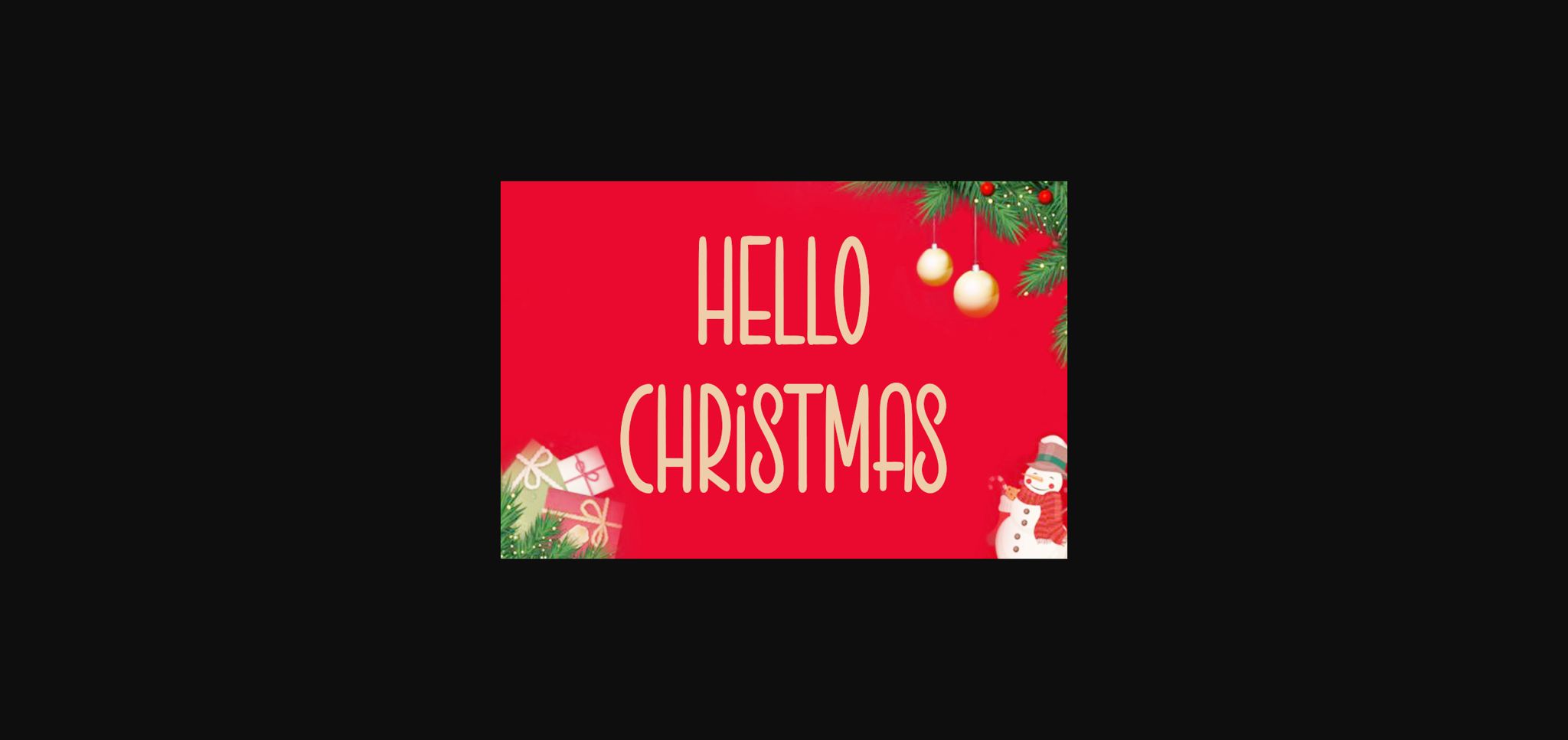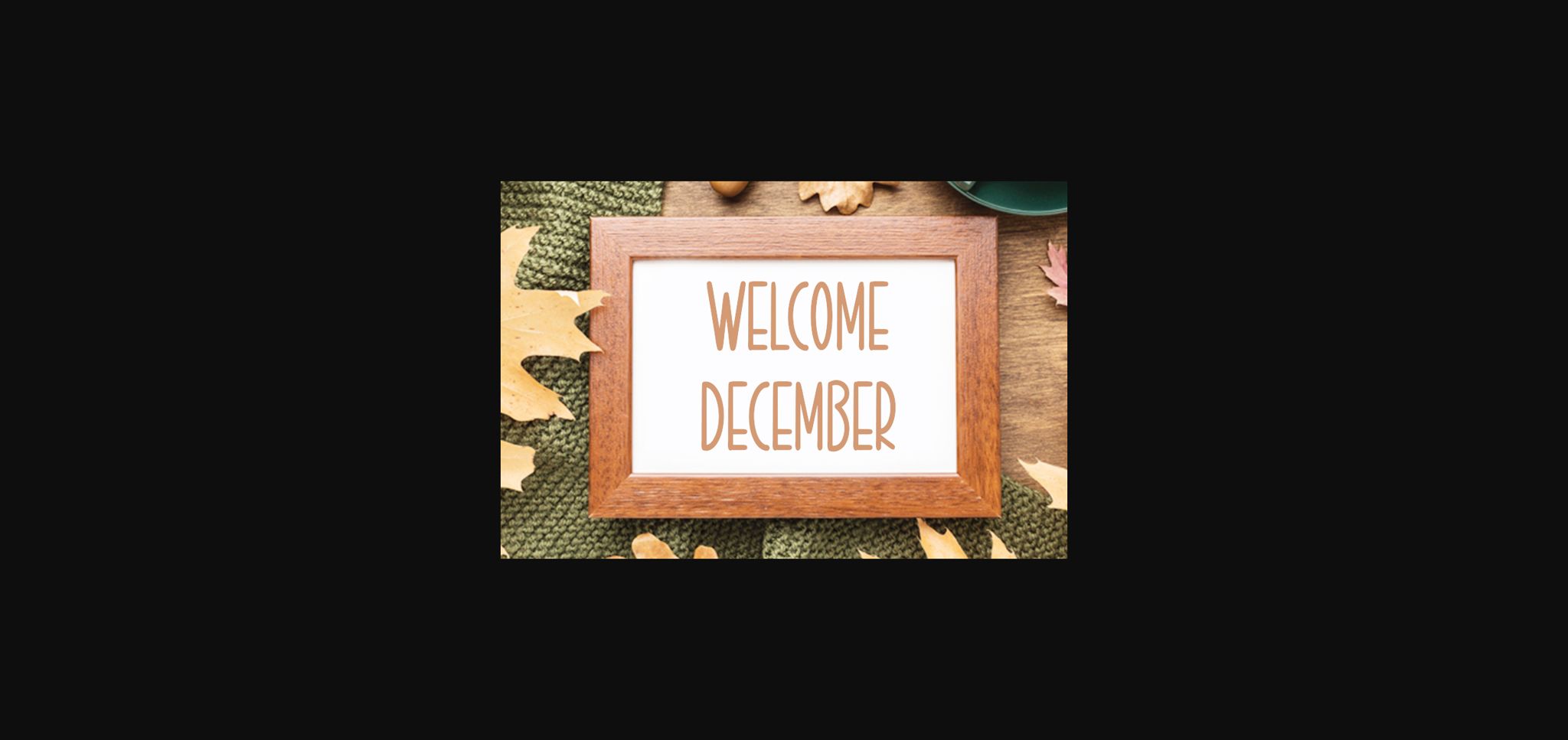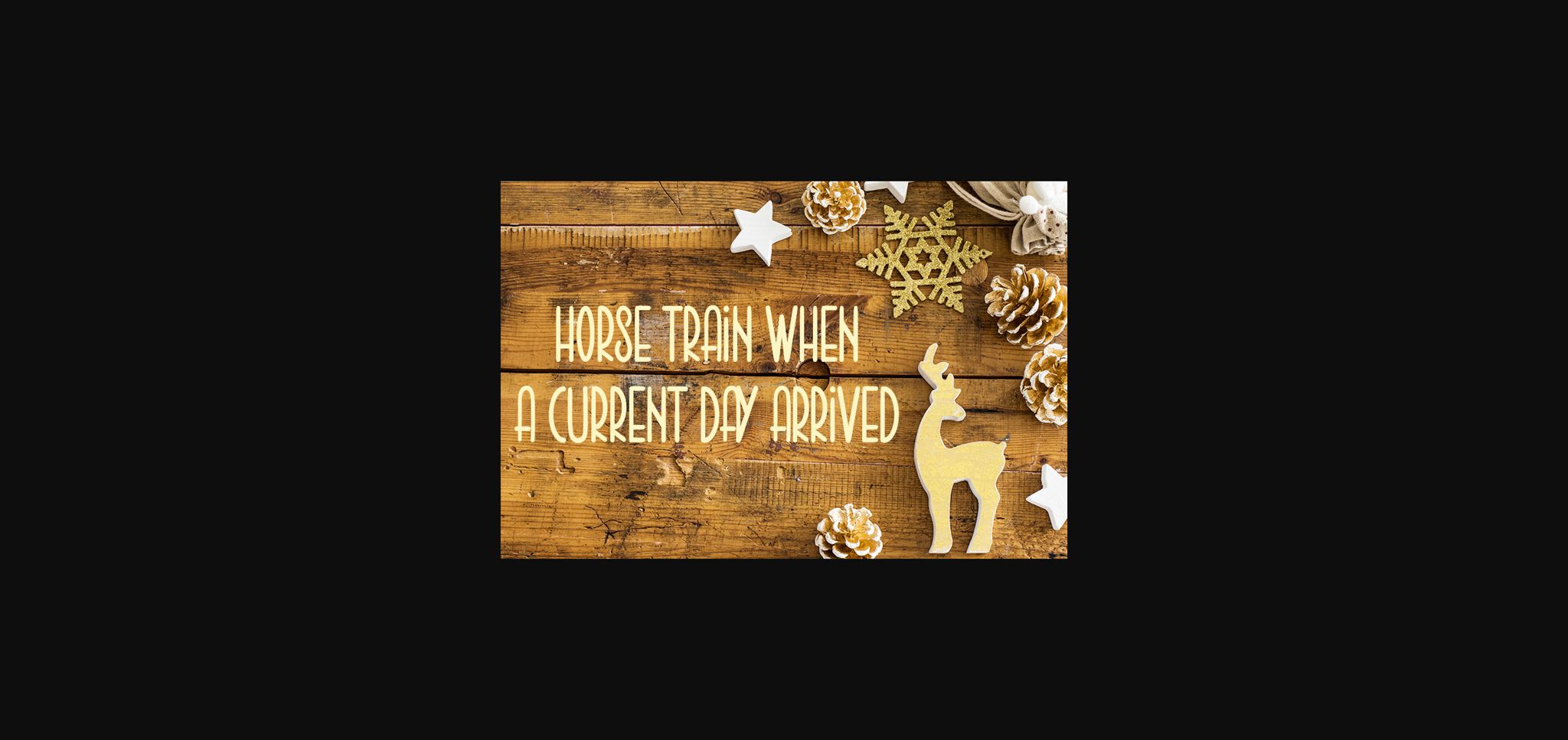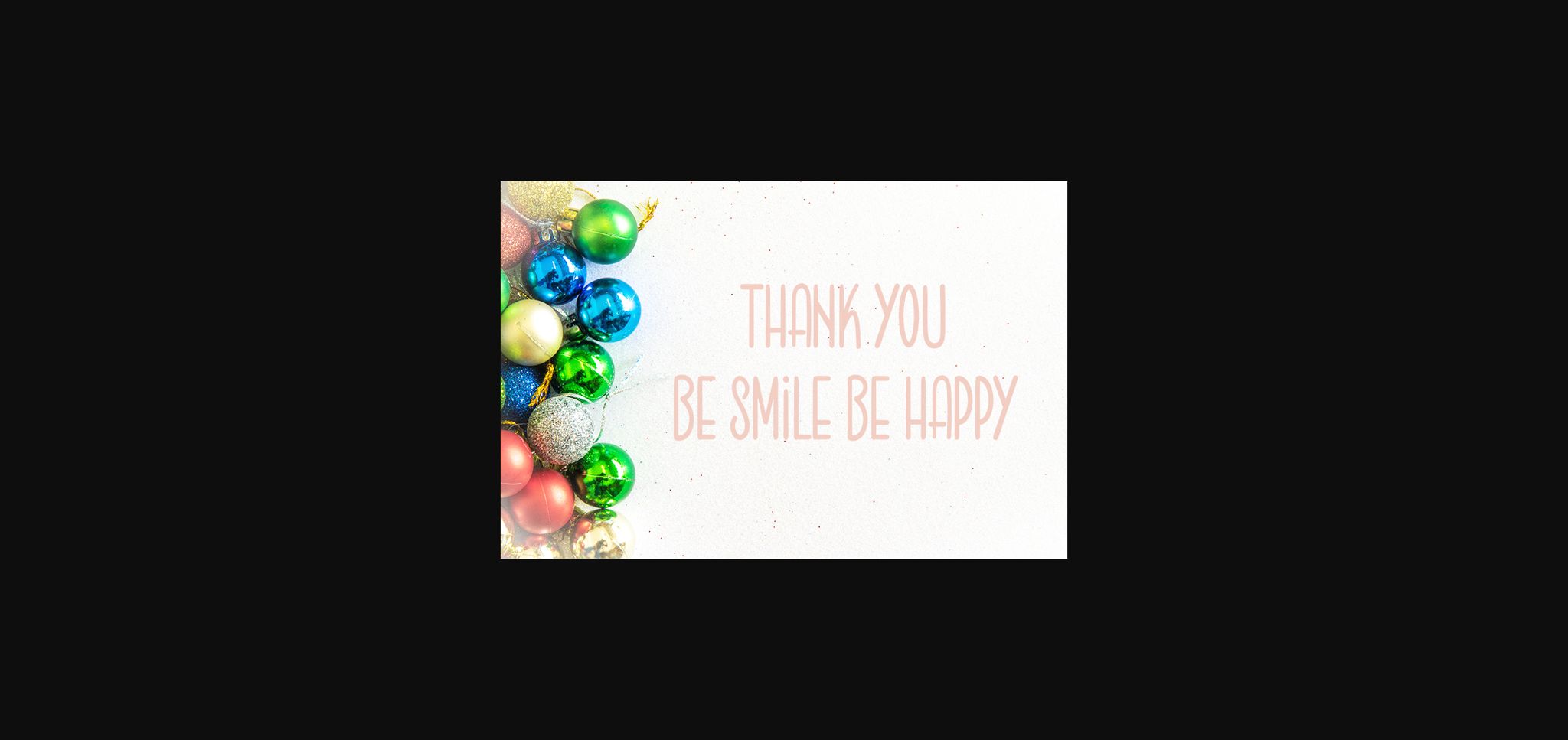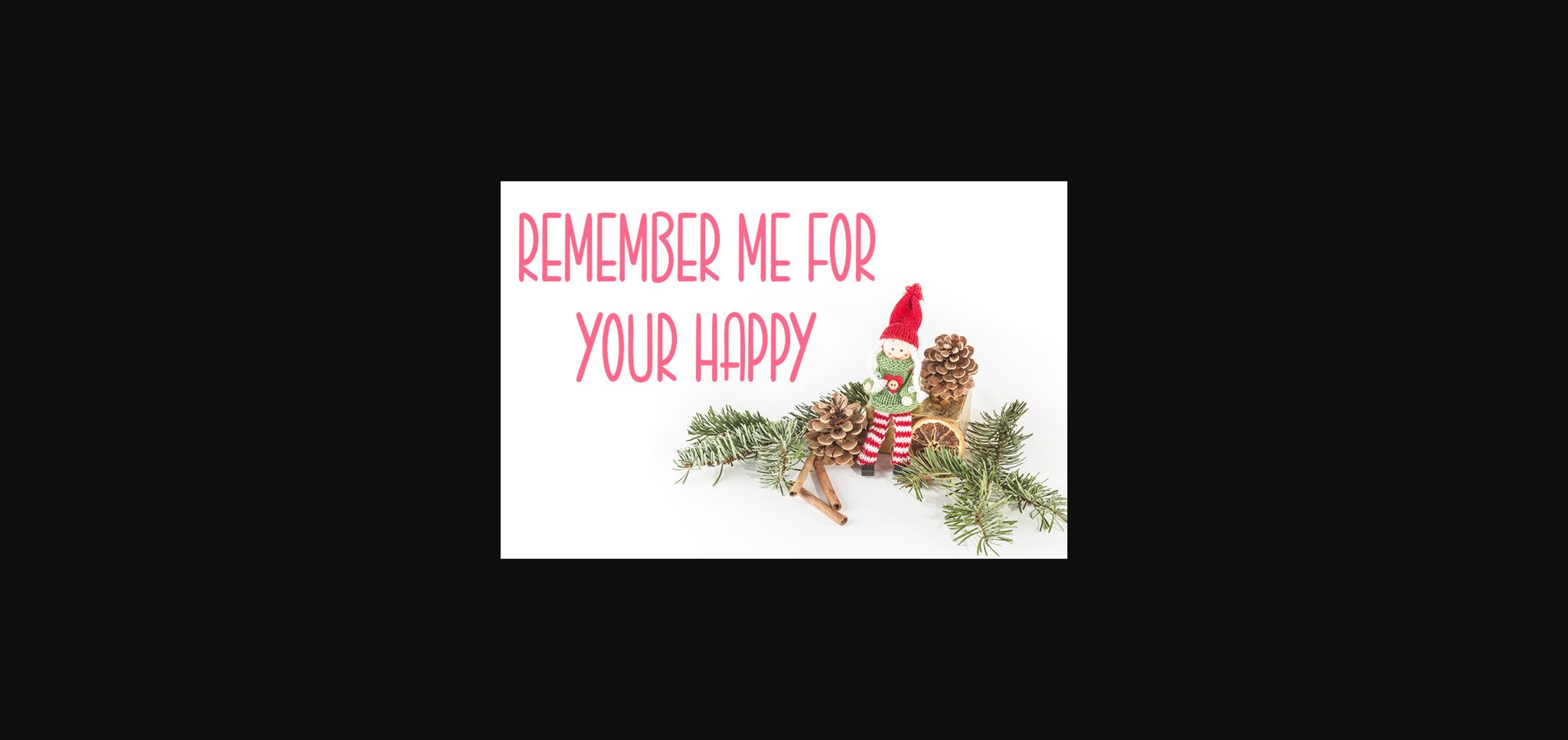
HomeSans Serif FontsHello Christmas Font Sans Serif Fonts Hello Christmas Font FacebookXPinterestWhatsApp 1 of 7 ... Hello Christmas Font Poster 2... Hello Christmas Font Poster 3... Hello Christmas Font Poster 4... Hello Christmas Font Poster 5... Hello Christmas Font Poster 6... Hello Christmas Font Poster 7... About Hello Christmas Font Hello Christmas is a simple and neat sans serif font. It can naturally matched to a large set of projects, so add it to your creative ideas and notice how it makes them stand out! DOWNLOAD NOW People also explored Milkshake Font MFC French Roman Avartequero Font Zimphony Duo Font Madelina Script Font Simple Signature Font Winter Smile Font Flowery Font Bray Notes Font 287 0 TagsHello Christmas Font Previous articleBoilover FontNext articleFruit Beautiful Font LEAVE A REPLY Cancel reply Comment: Please enter your comment! Name:* Please enter your name here Email:* You have entered an incorrect email address! Please enter your email address here Website: Save my name, email, and website in this browser for the next time I comment. Personal Use Free Color Personal Use Free Read more about this font Dream Personal Use Free Read more about this font Pompom Personal Use Free Read more about this font Party Pooper Personal Use Free Read more about this font BLOG Free vs Paid Fonts: Why Investing in Premium Fonts Is Worth It Free vs Paid Fonts: Why Premium Fonts Are Worth It in 2025 The debate of free vs paid fonts continues in the design world. While... Modern Sans-Serif Fonts That Brands Love in 2025 How to Cut Any Font on Cricut: Convert a Font to SVG (Free) Best Fonts for YouTube Videos: Make Your Thumbnails Stand Out